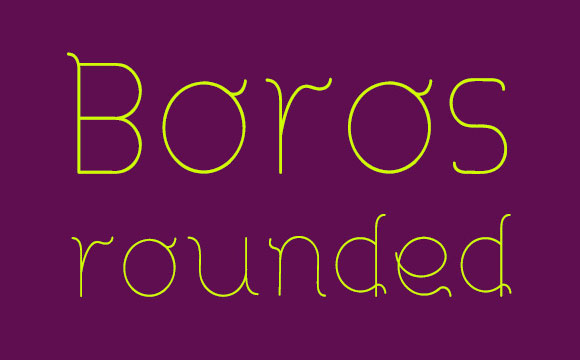
Free Boros Rounded Font
Grab this adorable free boros rounded font into your repertoire. Give a boost to your designer life. The Hungry JPEG has created this amazing and beautiful font. This is absolutely fancy font so you can easily make world-class designs.